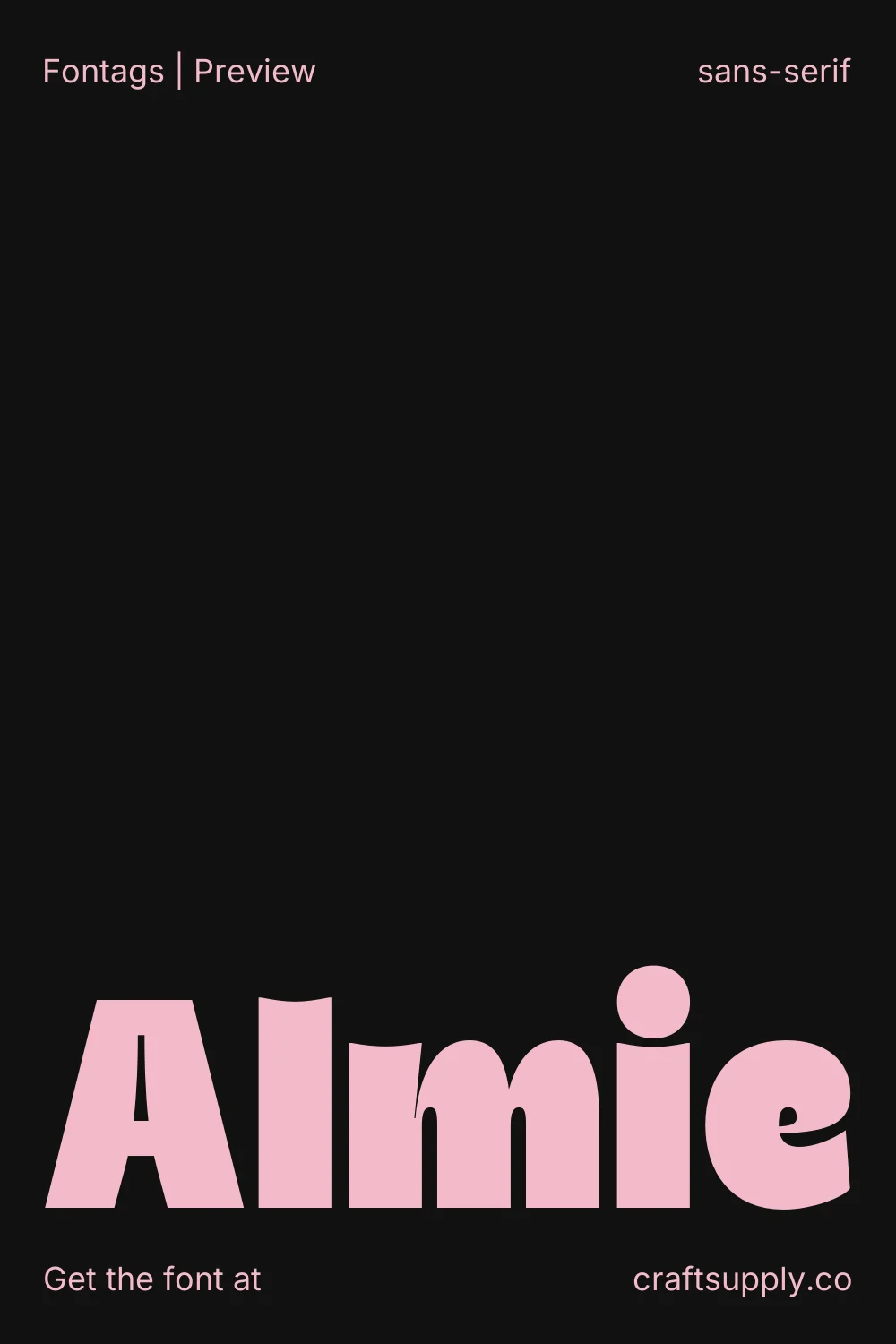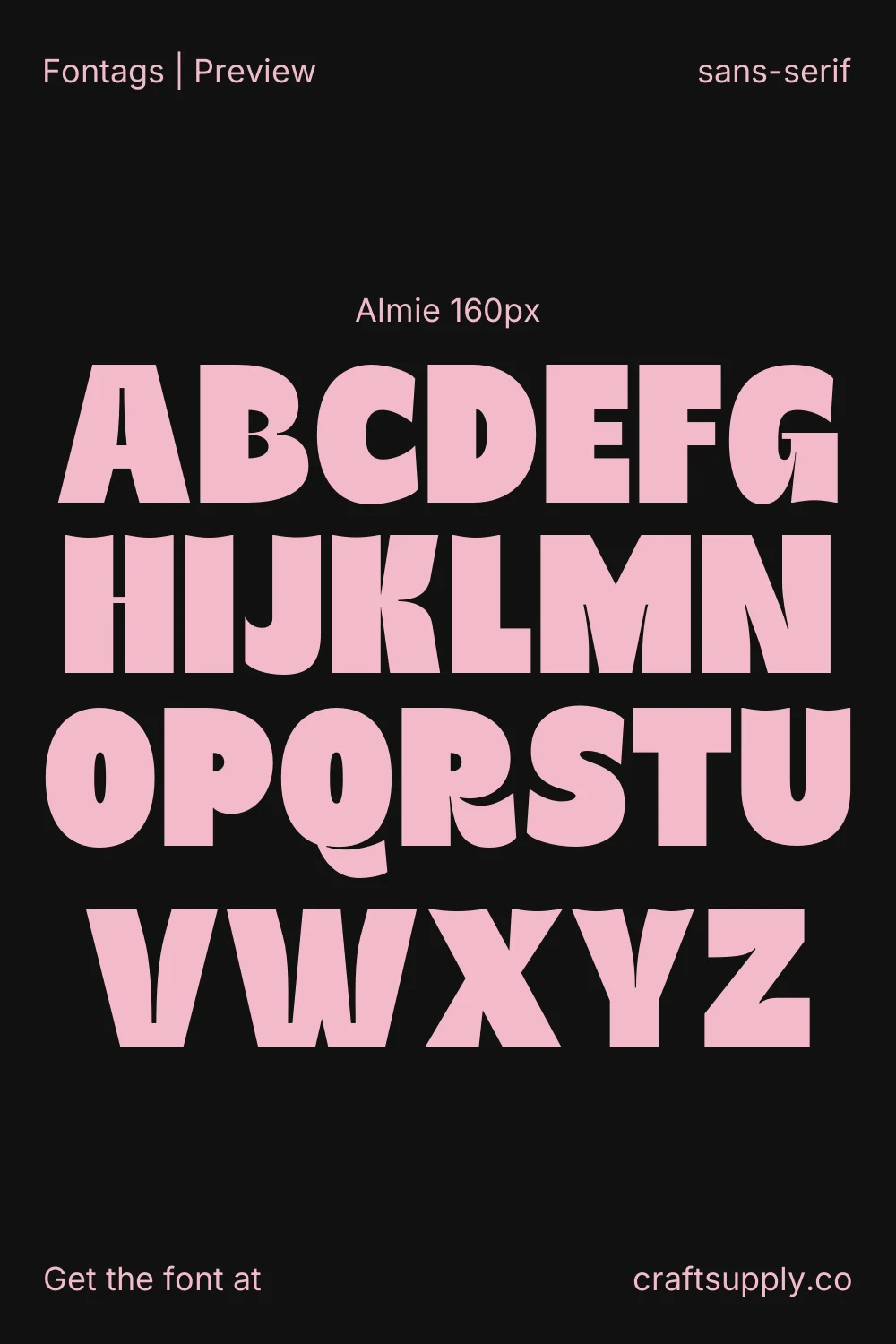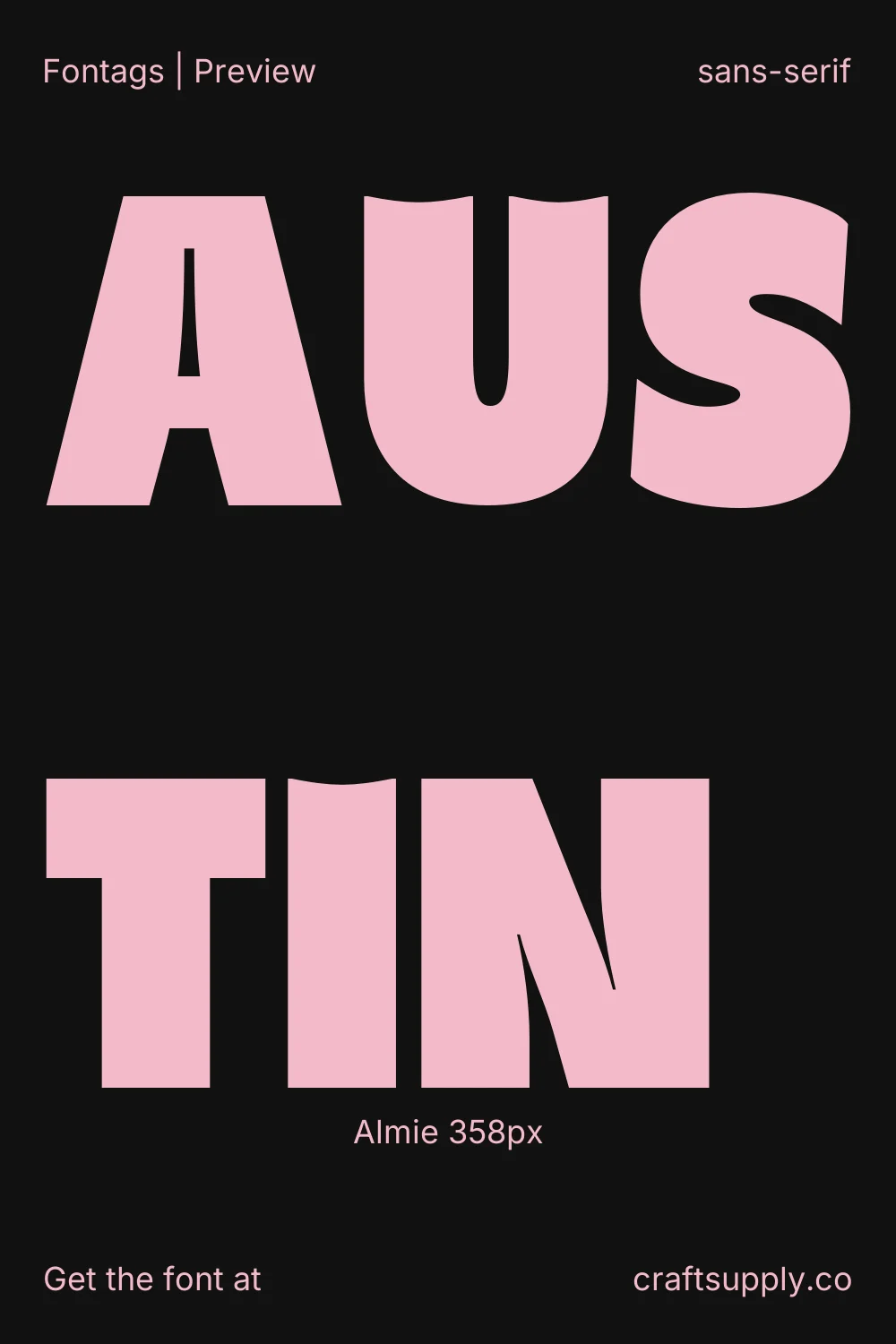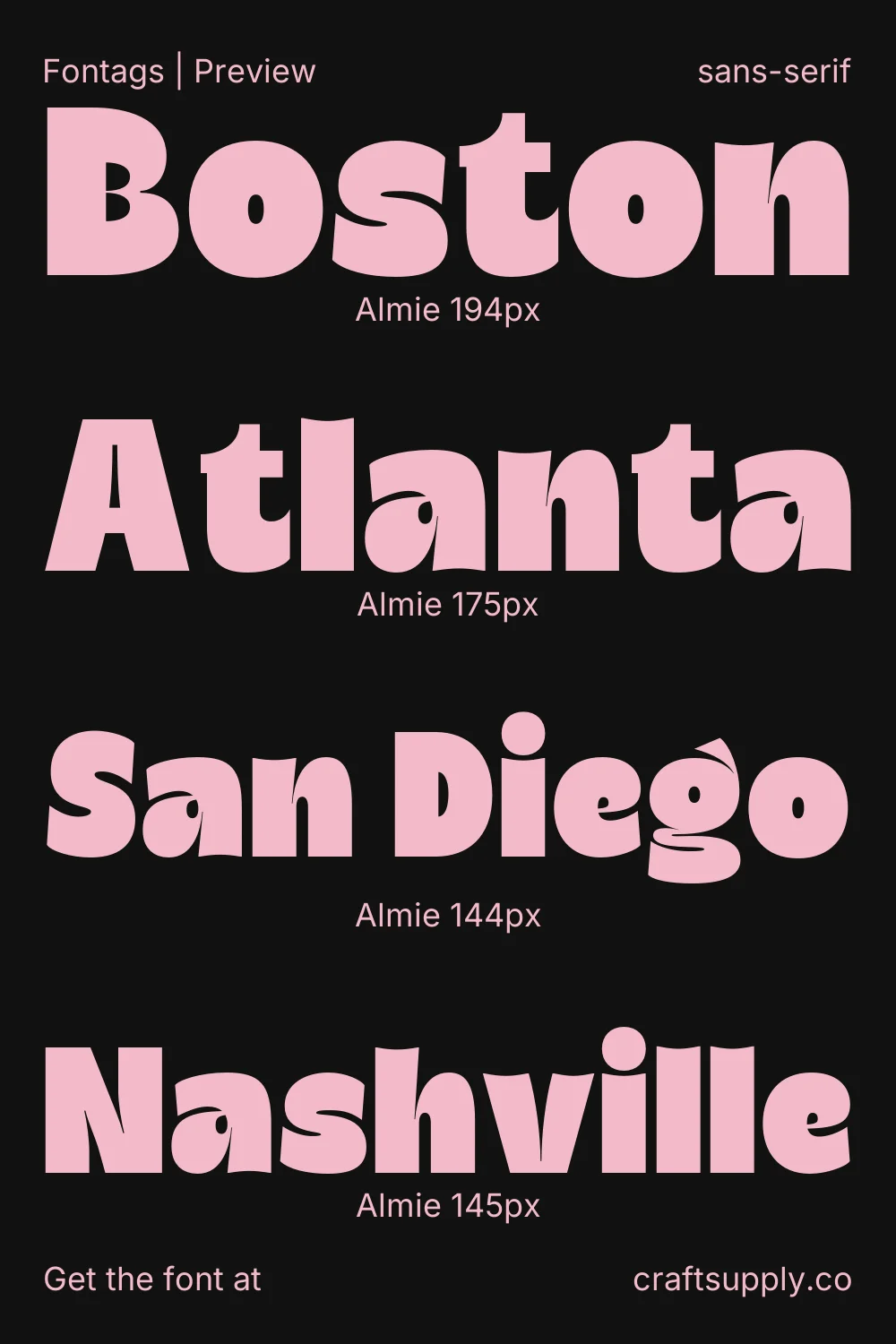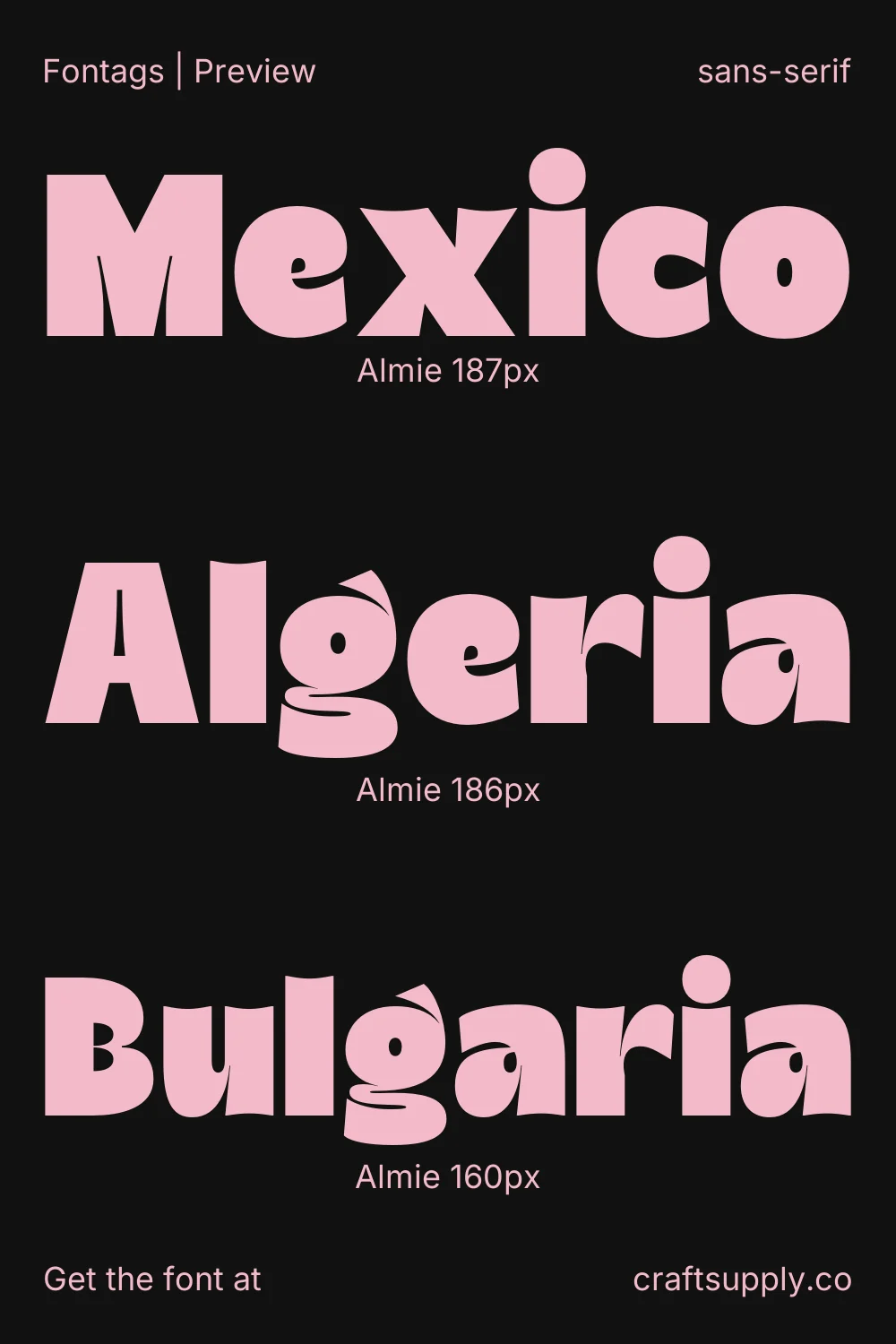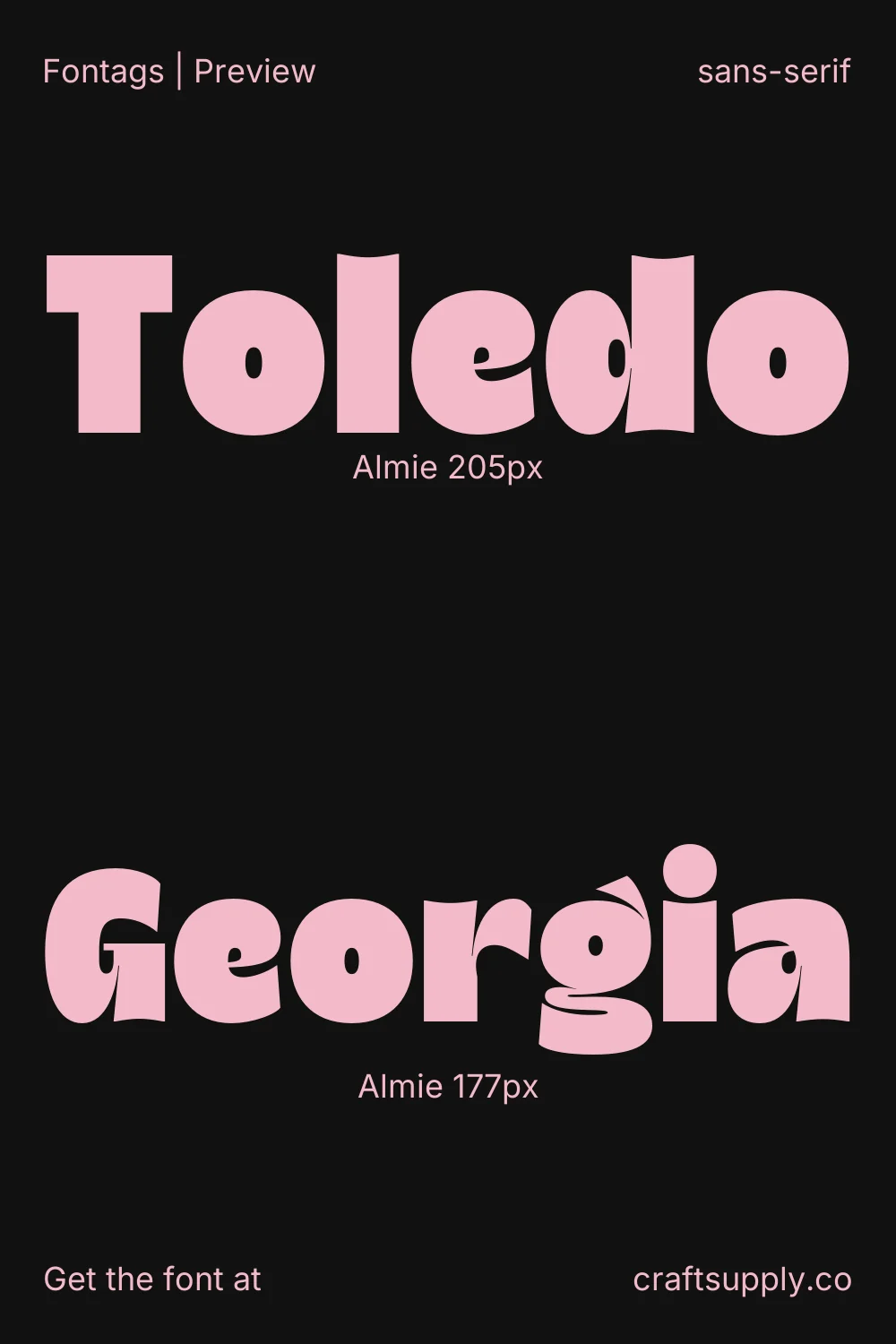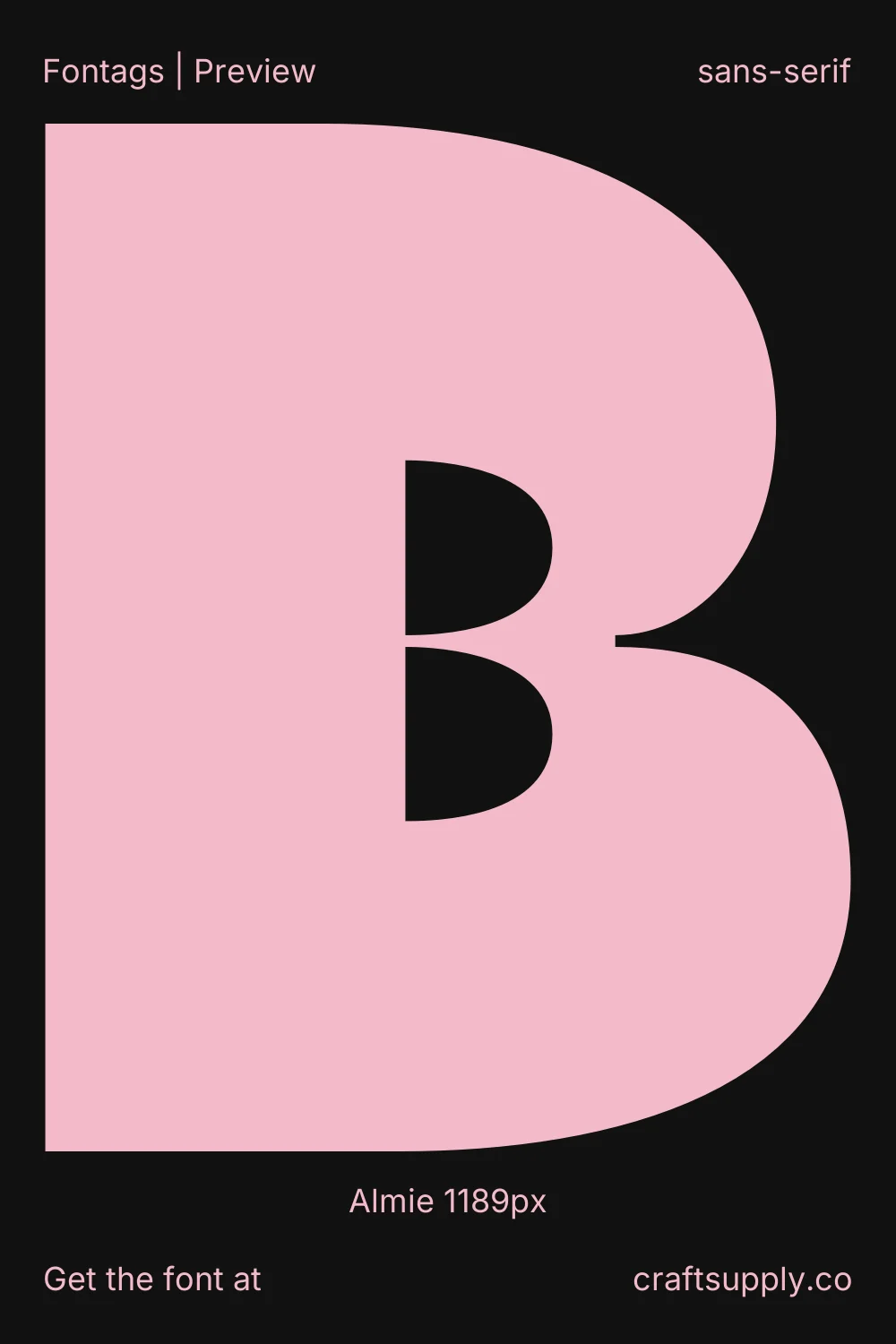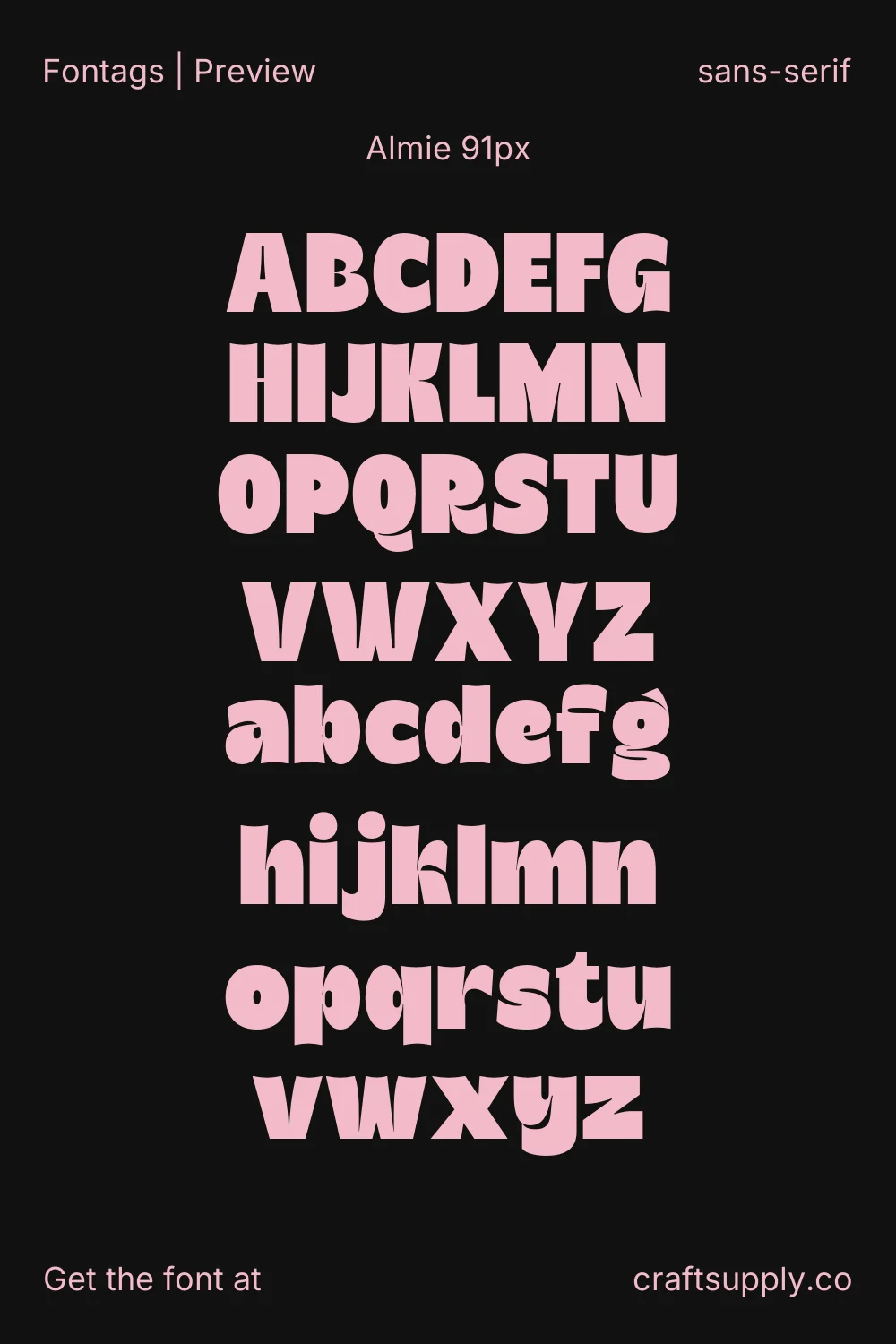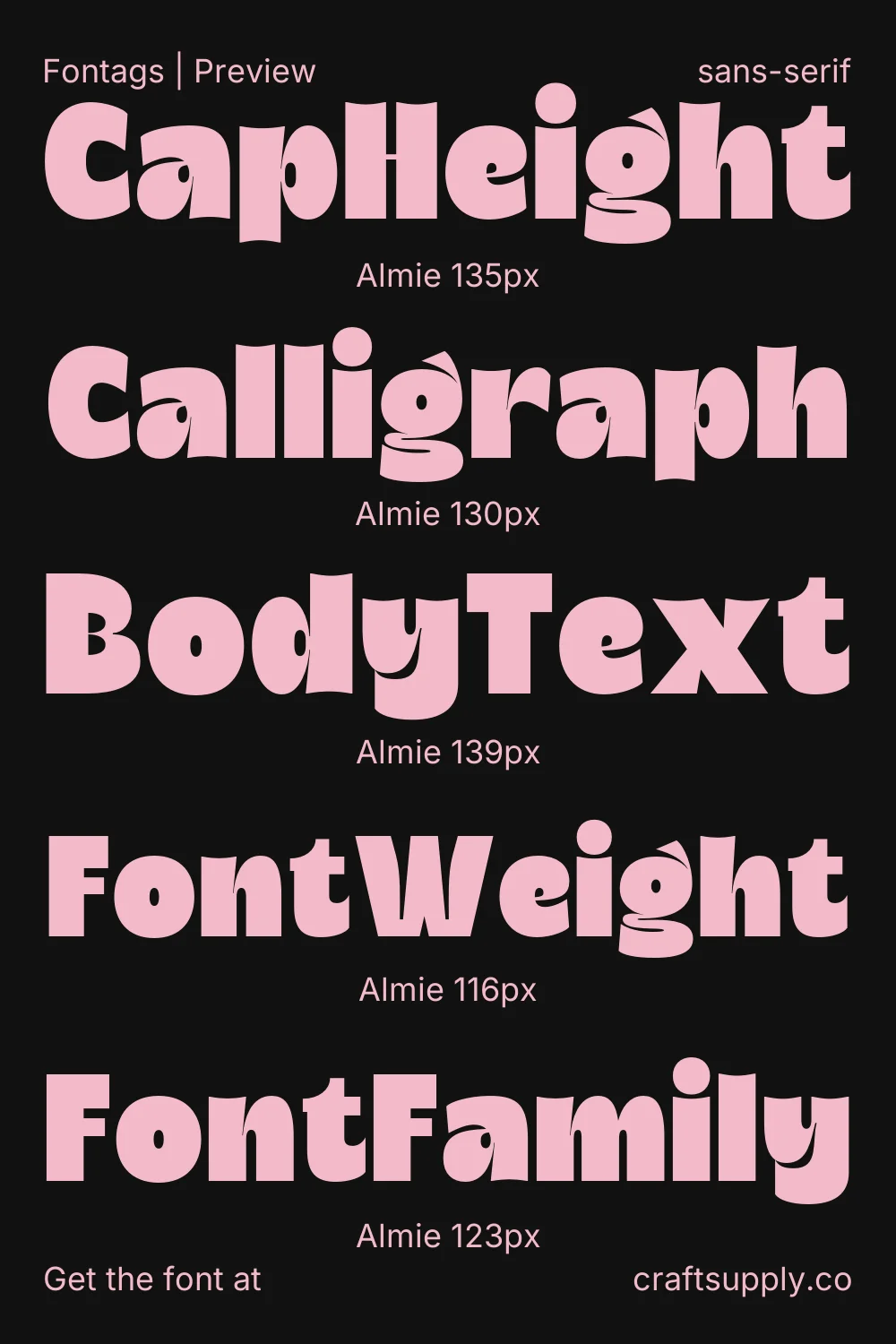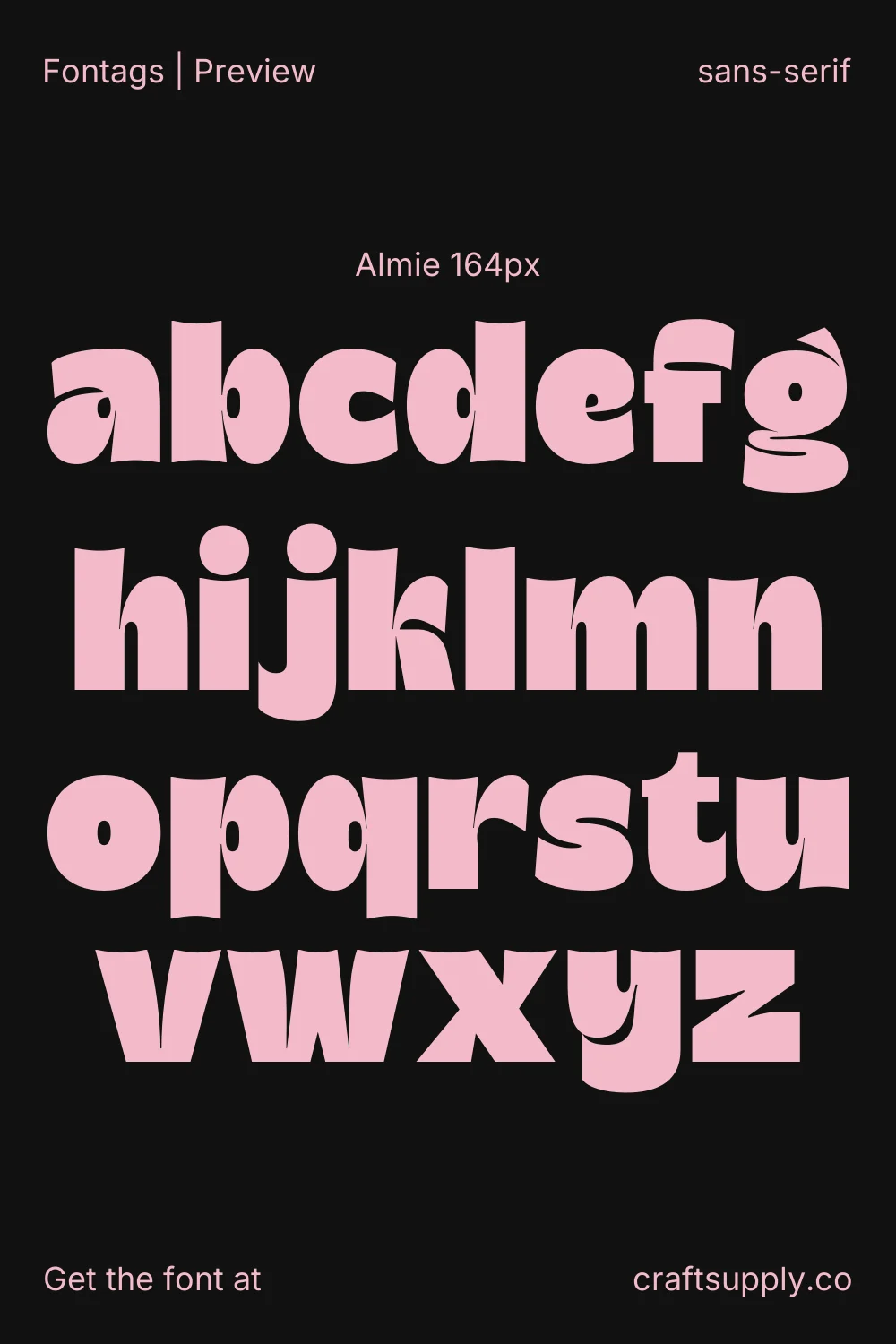
Almie
Almie is a bold and funky sans serif font that combines strong lines with playful details, creating a unique and captivating effect. Its professional appeal makes it suitable for branding, corporate presentations, and standout logos. Versatile and easy to use, Almie works well in headings, banners, and even body text, adding a touch of individuality to any design.